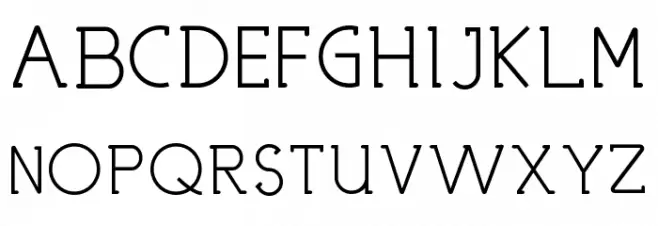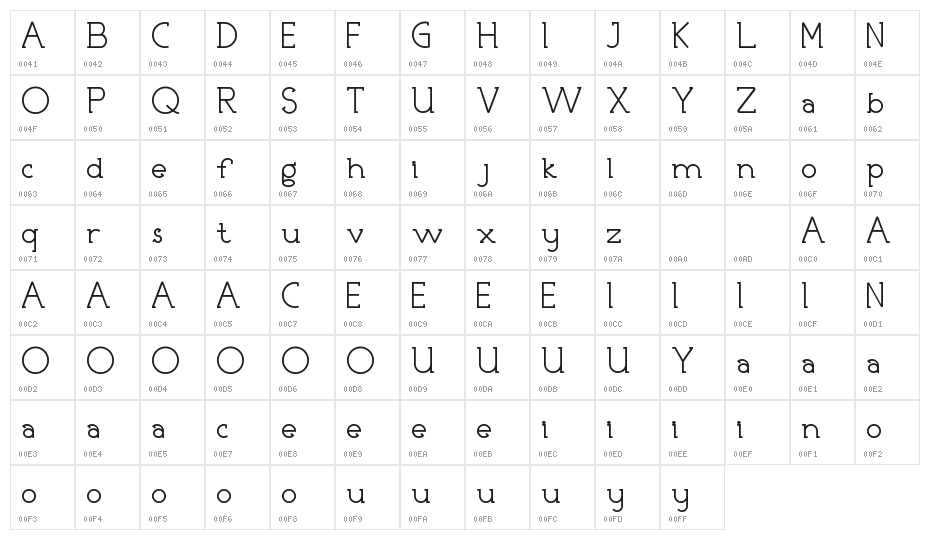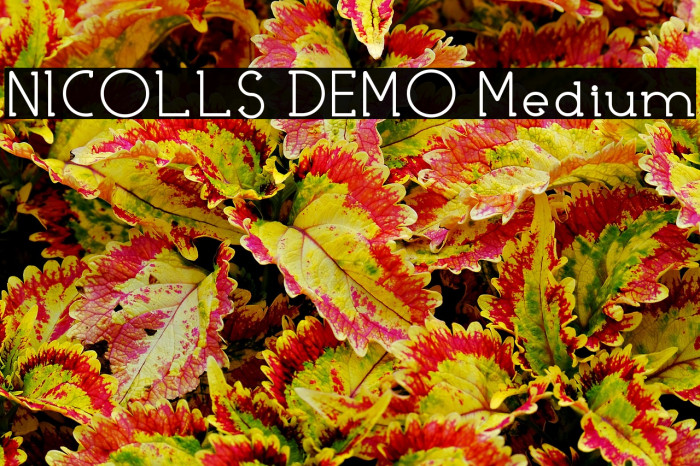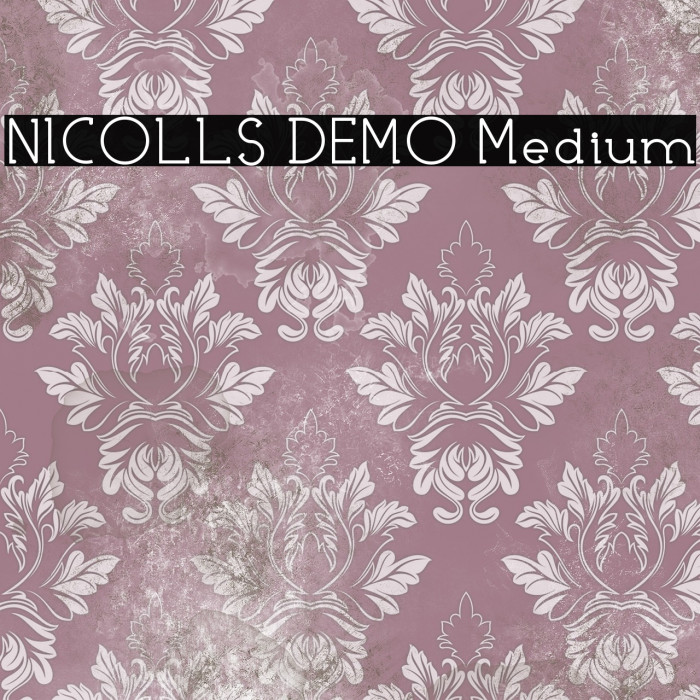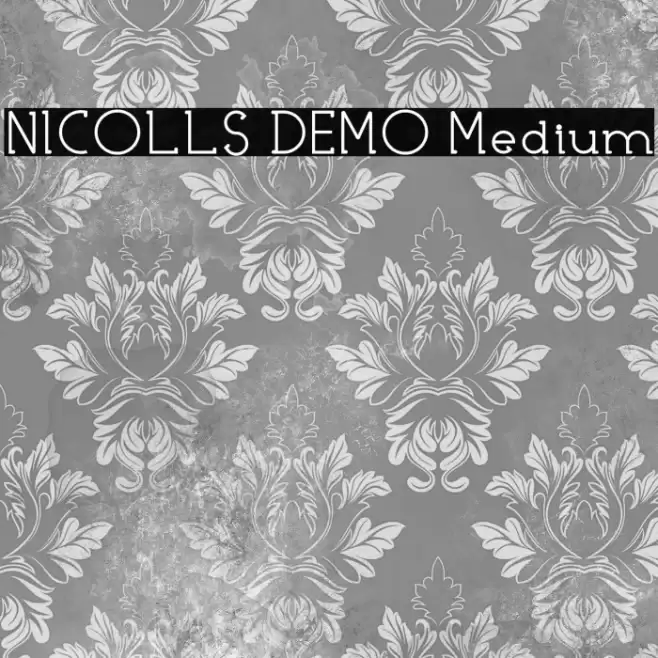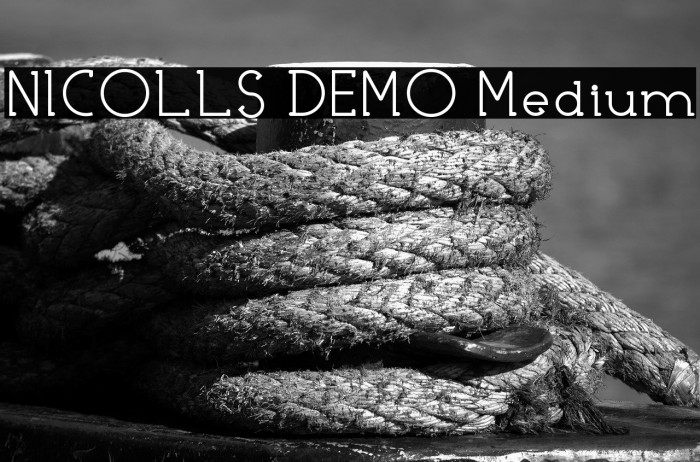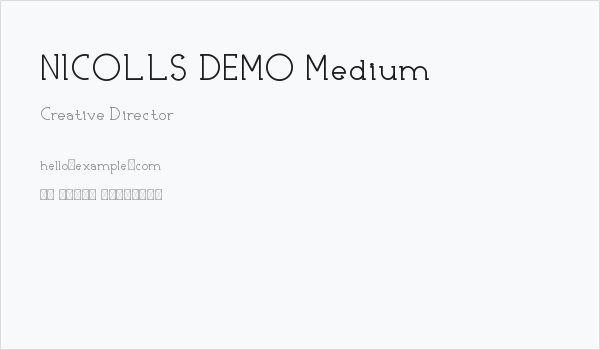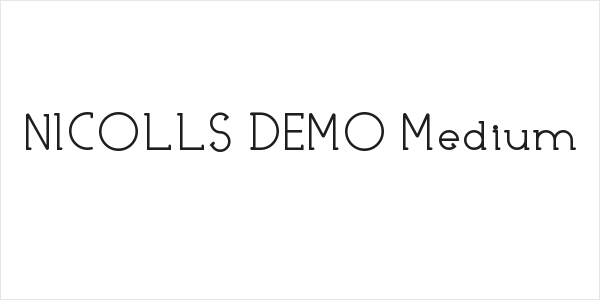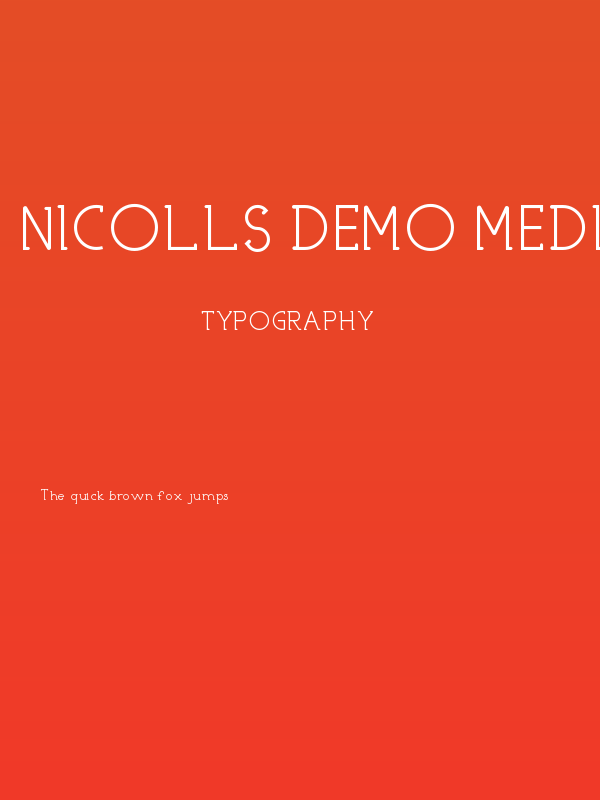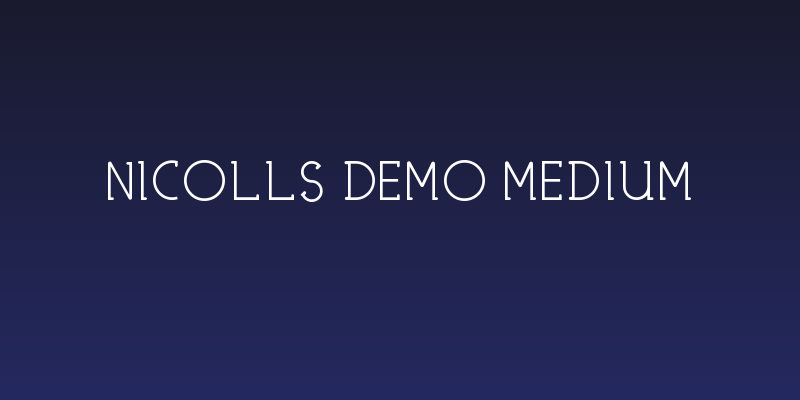
NICOLLS DEMO Medium Font
NICOLLS DEMO Medium Description
This font features a clean, geometric design with a modern twist. The uppercase letters are bold and structured, with a slight curvature that adds a touch of elegance. The lowercase letters maintain a consistent style, offering a harmonious blend of straight lines and subtle curves. The numerals are clear and legible, making them suitable for various applications. Special characters are designed with the same attention to detail, ensuring they integrate seamlessly with the rest of the font. Overall, this font balances modernity with a classic feel, making it versatile for numerous design projects.